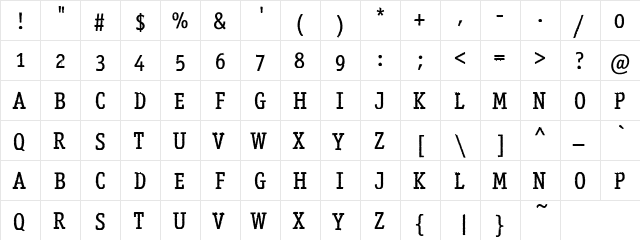
Food Secret regular
| Foundry | midfont |
| Designer | midfont |
Design Context for Food Secret Typeface
Food Secret takes a measured approach to typography — its balanced proportions and neutral character make it a reliable workhorse for both digital and print work.